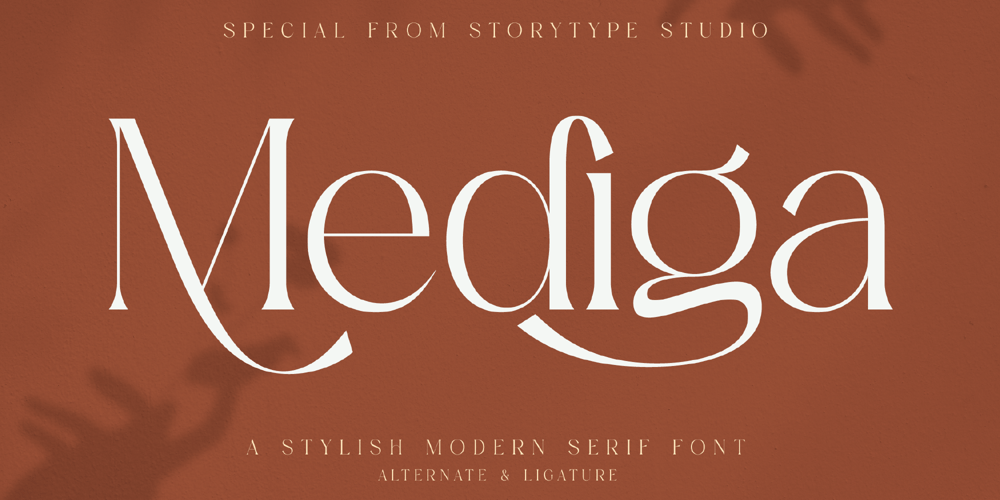
Mediga
Mediga font
Mediga Font Family was designed by Heru Utama Putra and published by Letterena Studios. Mediga contains 2 styles and family package options. Mediga is a modern and classic serif typeface that has its own unique style and modern look.This font is perfect for elegant and luxurious logos, book or movie title designs, fashion brands, magazines, clothes, lettering, quotes, and so much more.